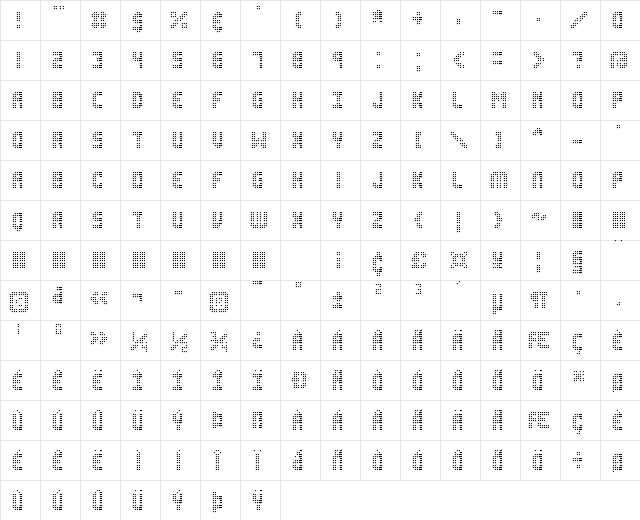
Edit Undo Dot BRK Regular
Design Context for Edit Undo Dot BRK
Edit Undo Dot BRK is rooted in pixel-grid construction, making it a natural fit for game UI, retro computing aesthetics, and digital nostalgia projects.